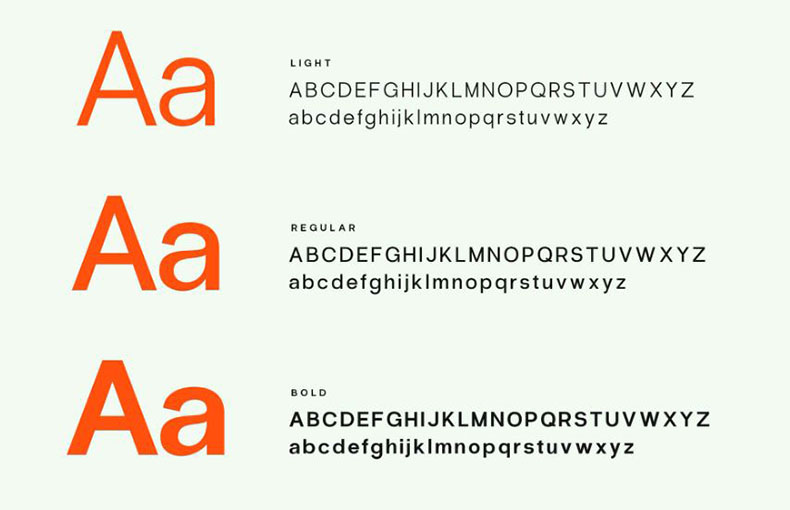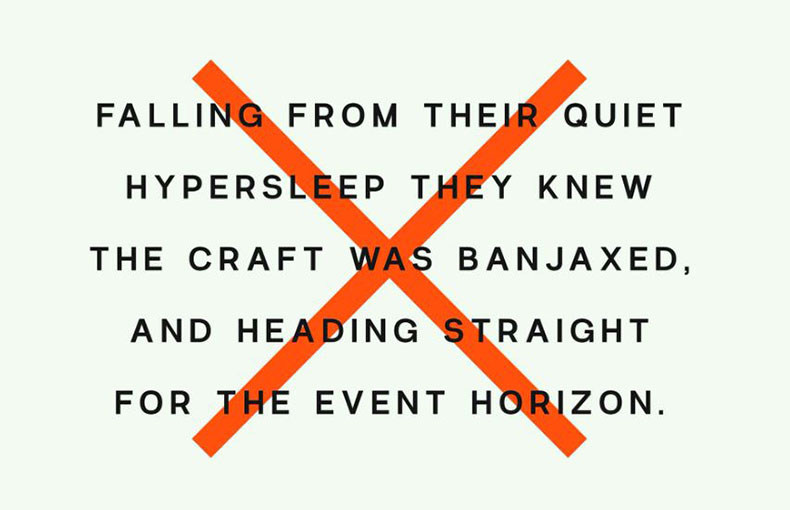
Radio Grotesk Font is an impressive sans-serif typeface designed to be both highly legible and visually engaging. Use it for body copy, headlines, titles, branding, and just about anything else.
The three weights allow the Radio Grotesk typeface to be effortlessly adaptable to any project. 3 styles with 340 glyphs each. Language support for the Americas and most of Europe.
It may be used in a range of sizes and weights to provide various visual effects and is equally suitable for headlines and body text.
Its tiny stylistic differences, like the tilted terminals on the lowercase “a” and “t,” give some personality without detracting from the readability as a whole.
It is ideal for creating designs for printing projects, social media postings, book cover presentations, invitation cards, websites, and logotypes.
You may use it to create multiple designs for your websites and decorate your blogs. It may be used to develop t-shirt designs, movie posters, magazine covers, books, book layouts, album art, invitation cards, banners, flyers, menus, and business cards.
Radio Grotesk is certain to be a trustworthy and efficient option whether you’re establishing a website, producing a print advertisement, or developing a branding strategy.
The font Radio Grotesk contains 341 glyphs and supports 85 different languages.
What is Radio Grotesk font?
A type of font or writing style is radio grotesk. It looks modern and sleek and is simple to read. It is used by many writers and designers for a variety of tasks.